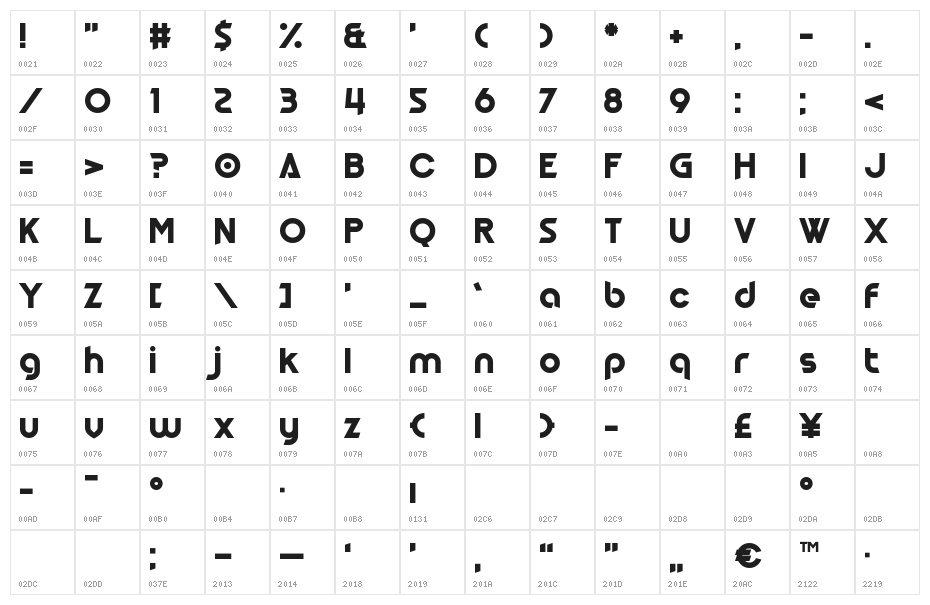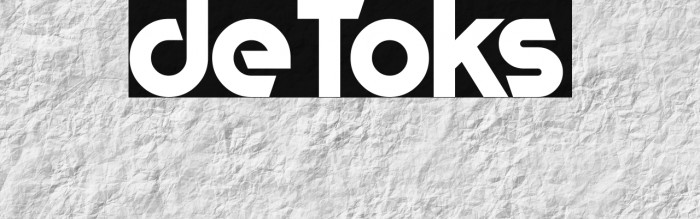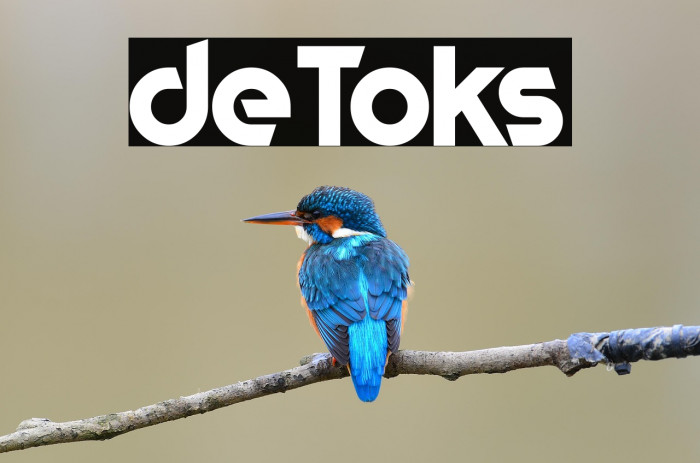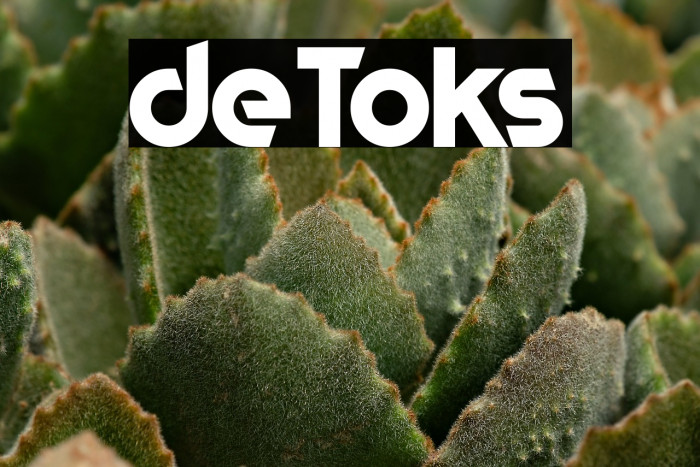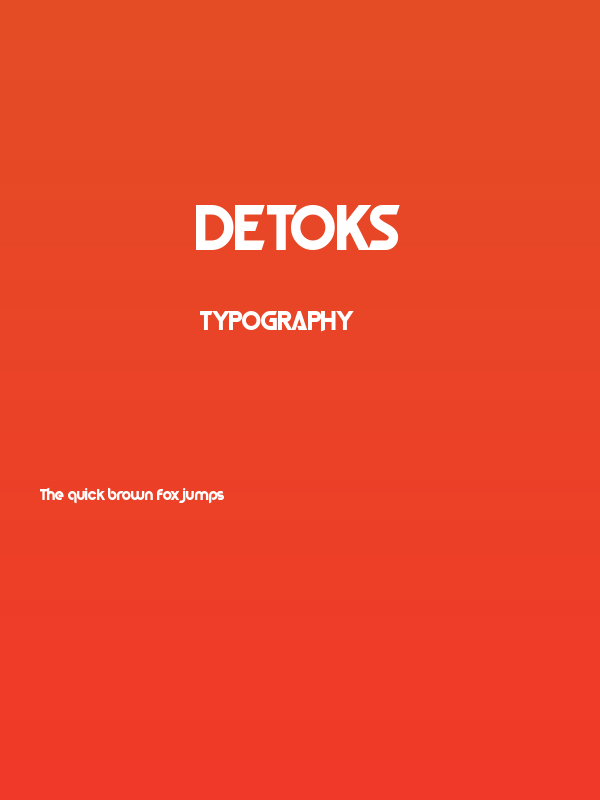
deToks Font
deToks Description
This font features a bold, geometric design with a strong presence. The characters are crafted with a modern aesthetic, showcasing clean lines and a uniform stroke width. The uppercase letters exhibit a striking angularity, while the lowercase letters maintain a rounded, softer appearance. The numerals are consistent with the overall style, providing a cohesive look. Special characters are designed with the same attention to detail, ensuring versatility across various applications. This font's unique style makes it suitable for projects that require a contemporary and impactful visual identity.
| Proposed Projects | Ideal for branding, advertising, posters, and digital media that require a strong visual impact. |